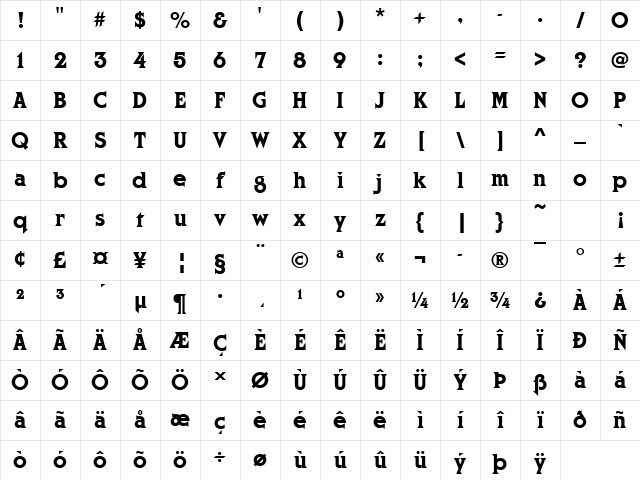
Complete URWCopernicusD Regular glyph index. Displaying only characters natively supported by URWCopernicusD Regular font.
URWCopernicusD is a composed and adaptable typeface that performs quietly and consistently across a wide range of design contexts.